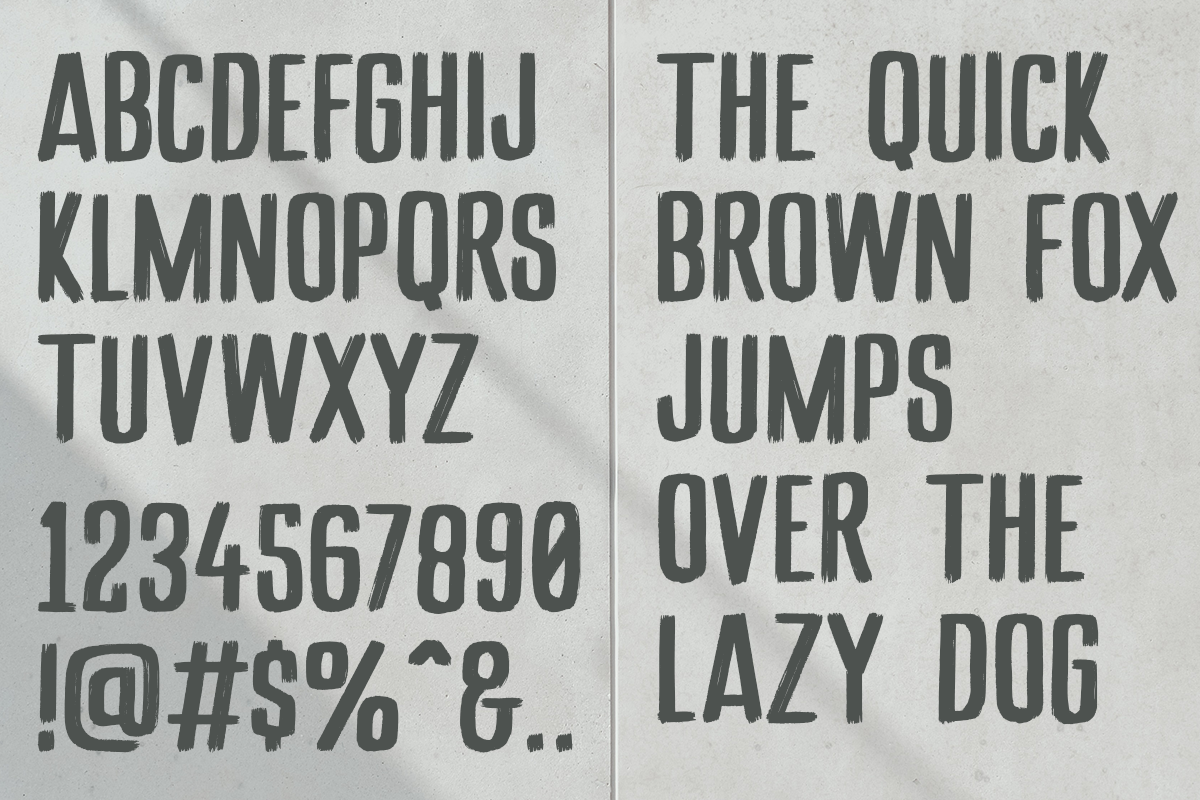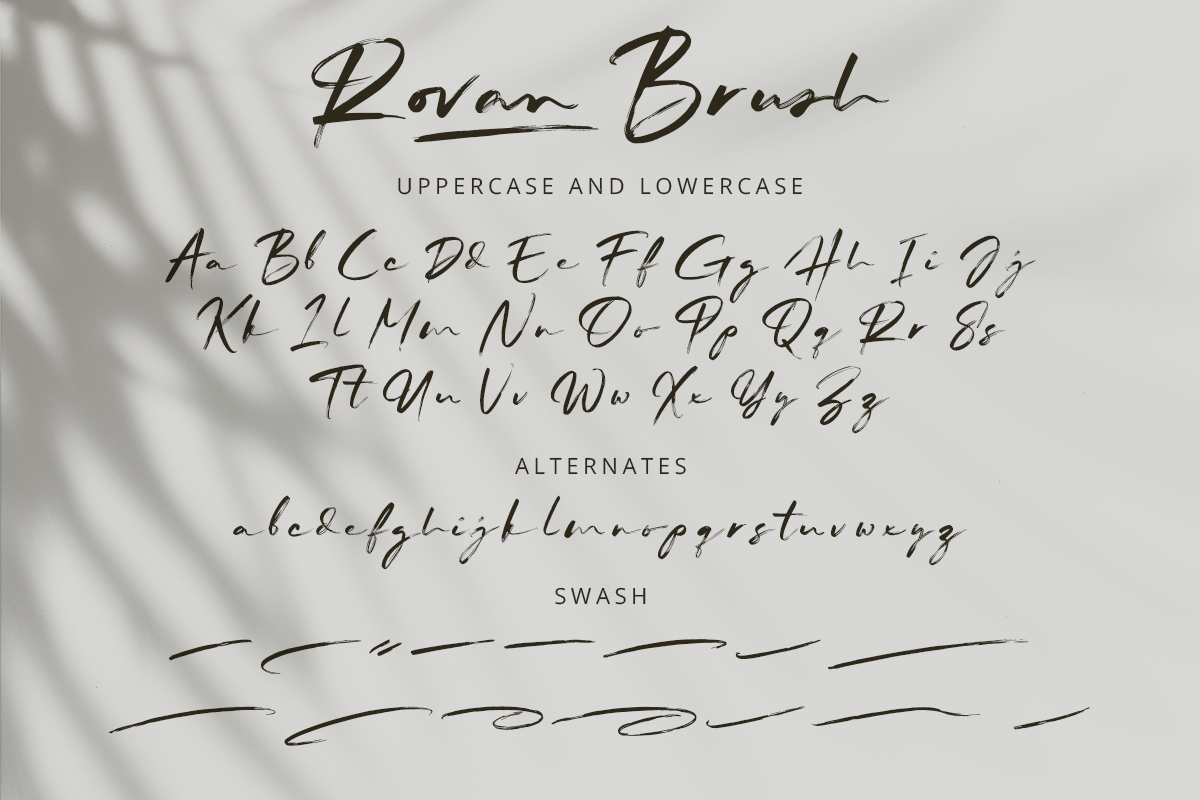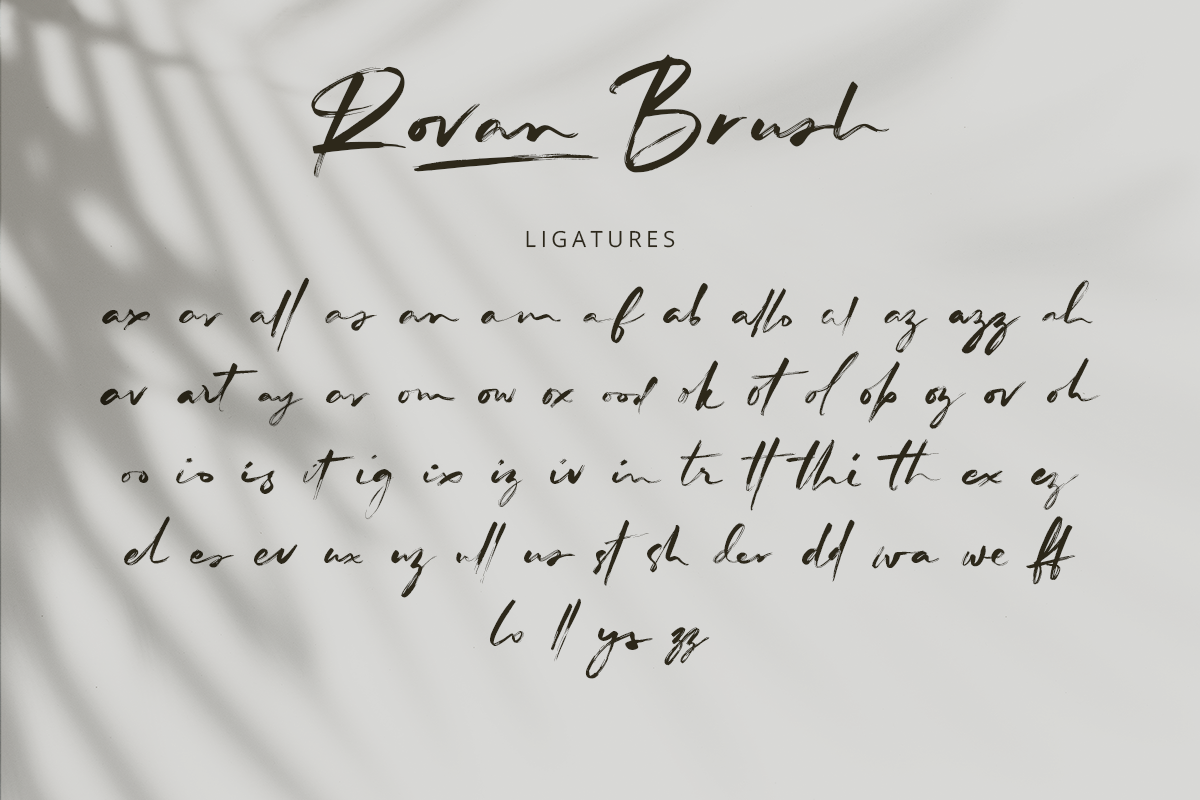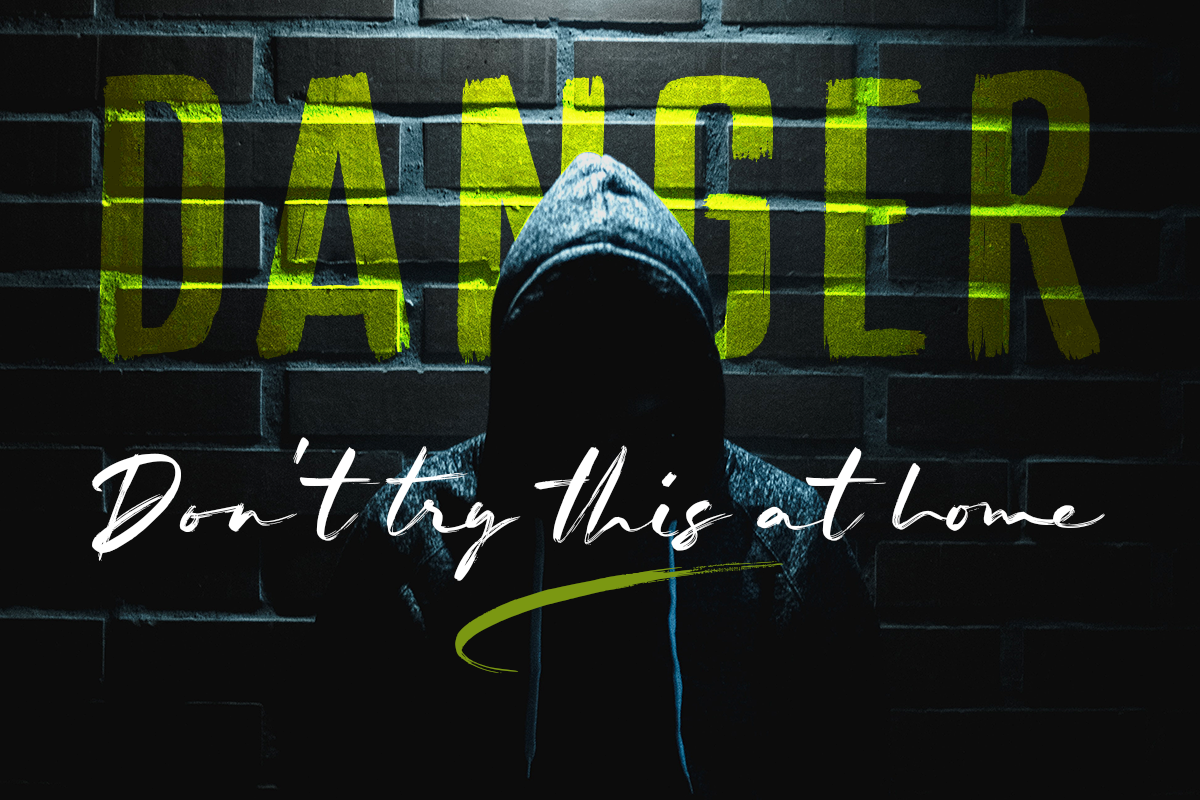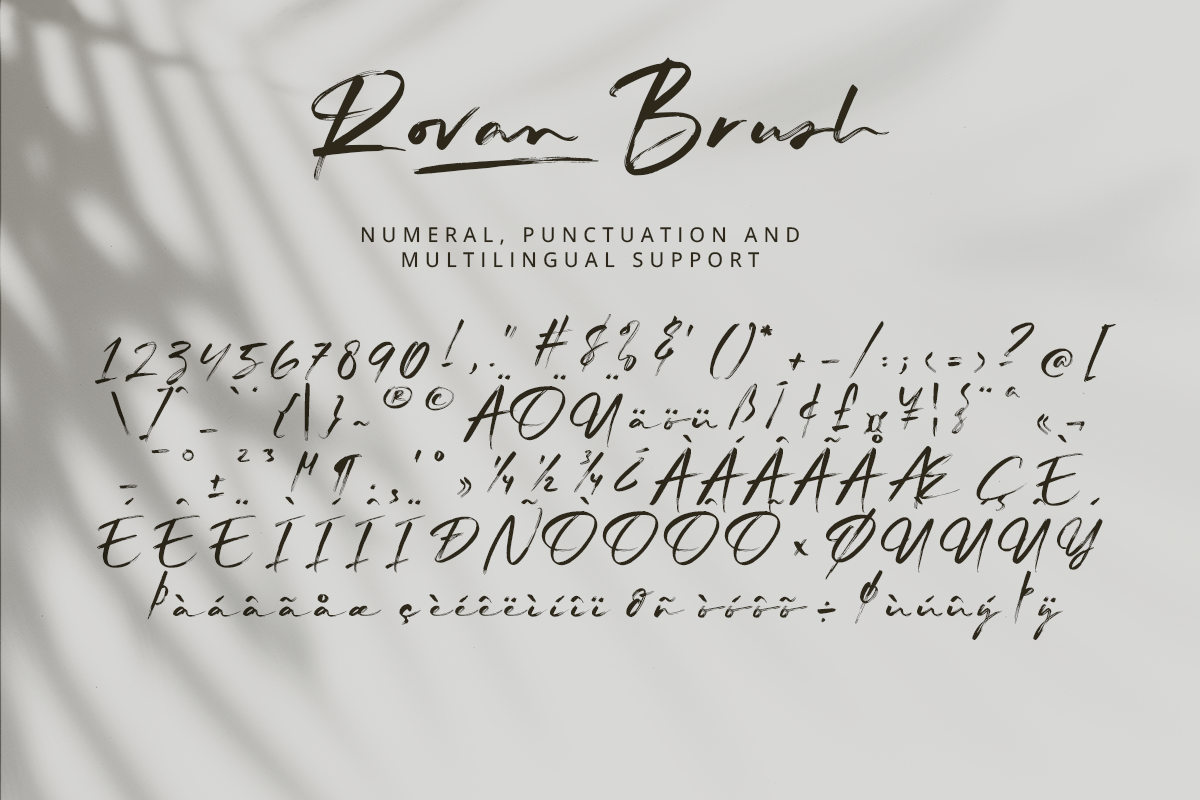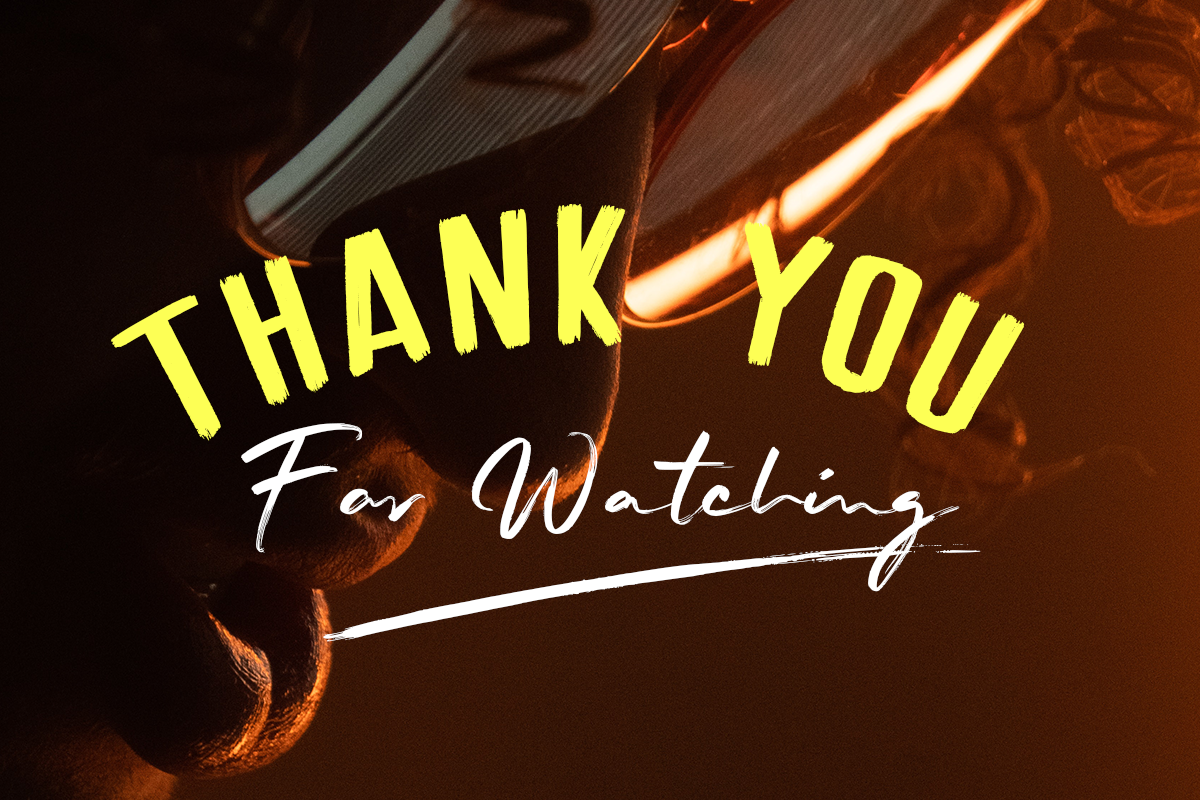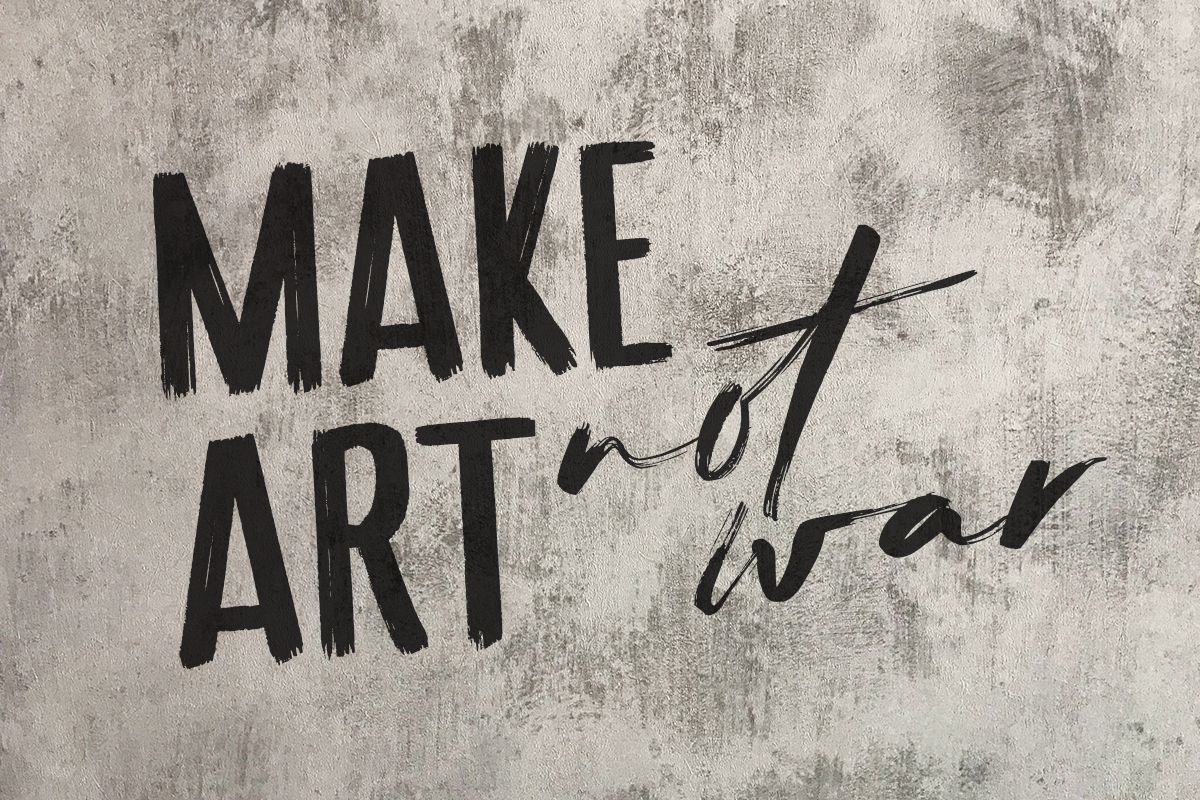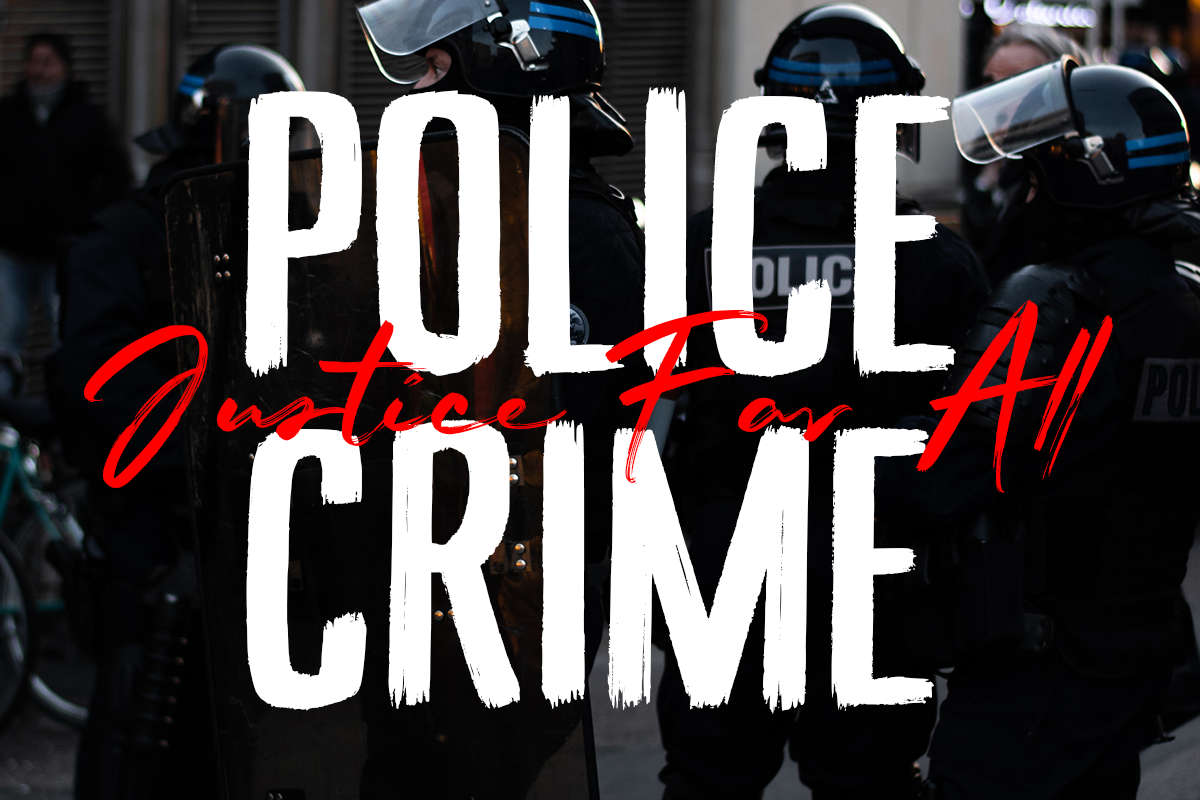
Rovan Modern Duo Brush Font
The Rovan Modern Duo Brush font is a type of the Brush font family and one of our non-script brush fonts collections. This font is a typeface that uses a brush in its manufacture. The Rovan Modern Duo Brush font looks very artistic and has a steady handcrafted feel to its style. It is clean with no additions and easy to distinguish. This font is legible.
The rough edges and strokes of the font design add a lot to the aesthetic and modern feel of the font. The Rovan Modern Duo Brush font can use for designing graffiti, murals, wall art, skateboard art, or any other type of street-inspired design. At the same time, these facts make the Rovan Modern Duo Brush font one of the best fonts to pair with modern living gear.
The Rovan Modern Duo Brush font can use as a digital font and print font. Artwork on clothing or merchandise such as t-shirts, motorbikes, or helmet stickers can also use as part of the design. If you like dangerous, dark, metropolis-themed, or ghetto-inspired artwork, you should consider picking up the Rovan Modern Duo Brush font for the newest member of your new collection.